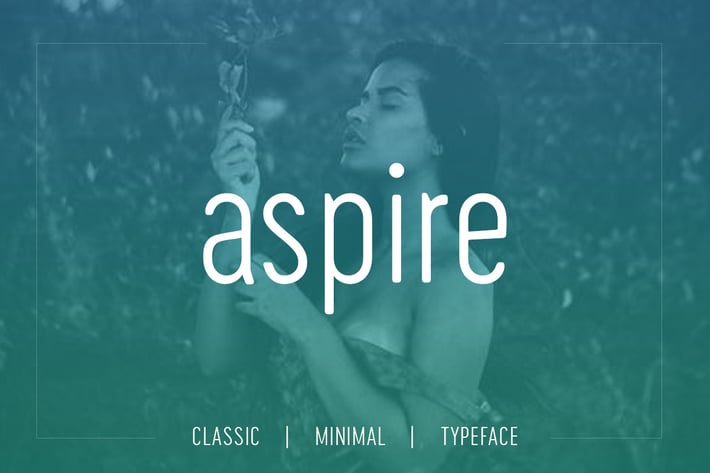
Aspire Sans - Modern Typeface + WebFont
Aspire Sans Typeface
Aspire Sans is a classic and Minimal Sans Serif typeface, Aspire Sans can keep the minimalism at its level best and is a Perfect choice for Creative and Classic Typography Designs.